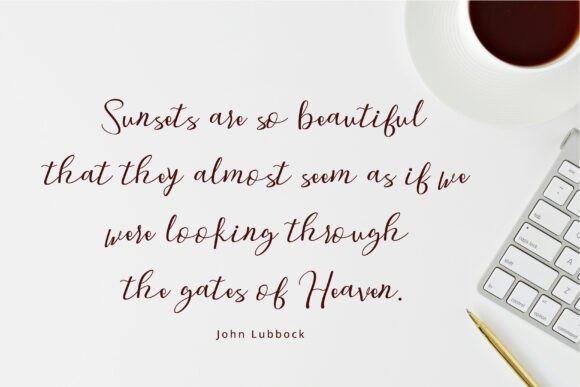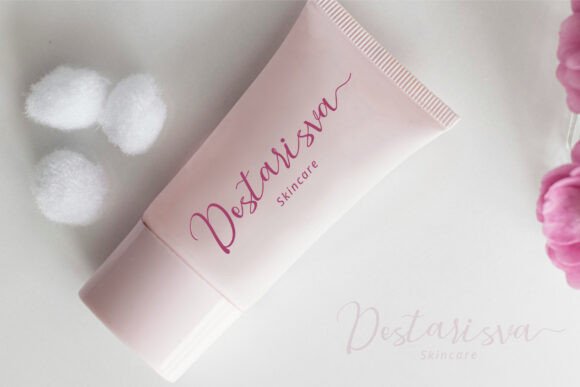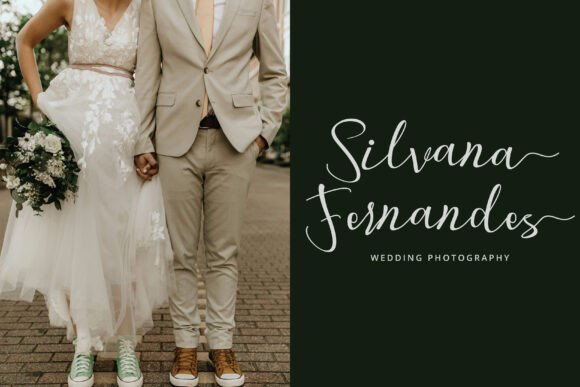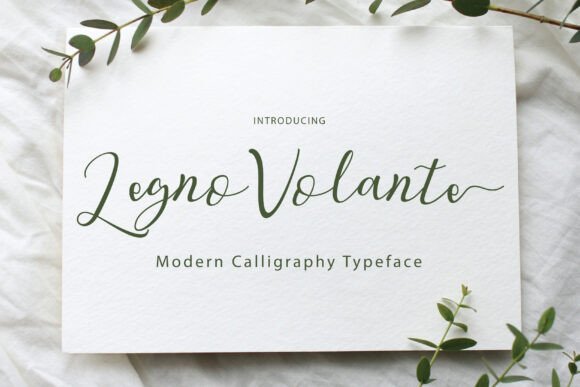
Introduction to Legno Volante Font
Legno Volante Script with a handmade Signature style, decorative characters, and a dancing baseline.
Legno Volante Script with a handmade Signature style, decorative characters, and a dancing baseline!